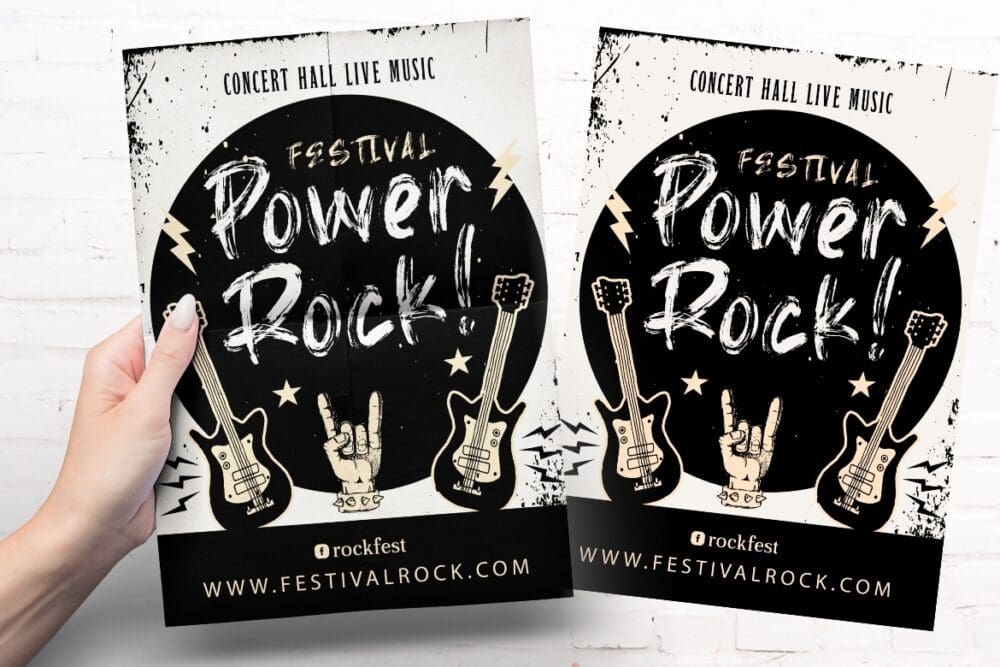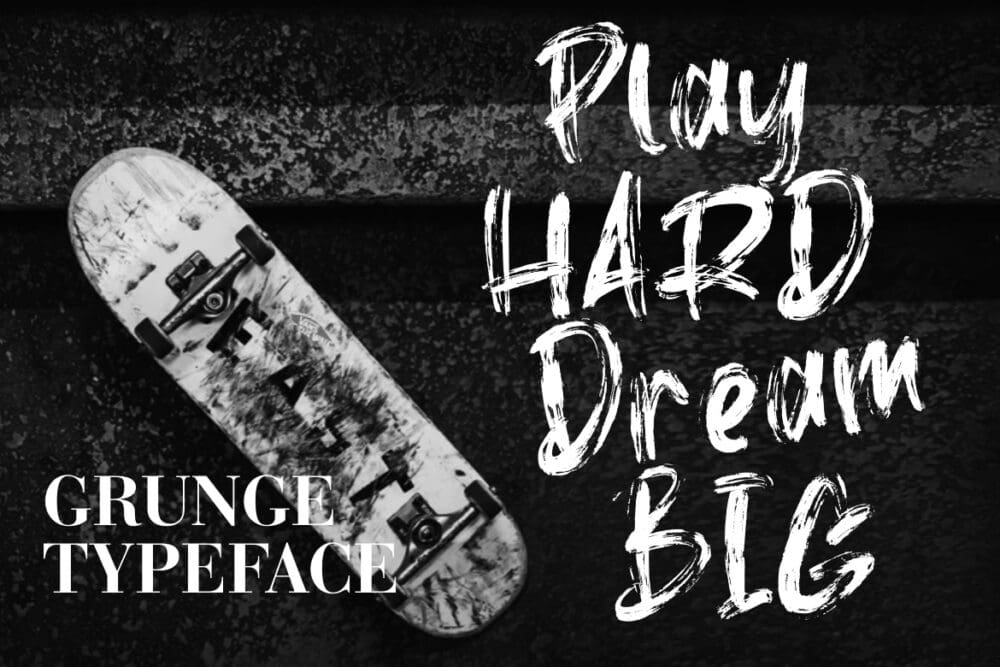
Death Rock Brush Font
Death Rock Brush Font is a bold, and scratch that perfect for your amazing project. Death Rock is perfect for branding projects, logos, advertisements, product packaging, and any projects.